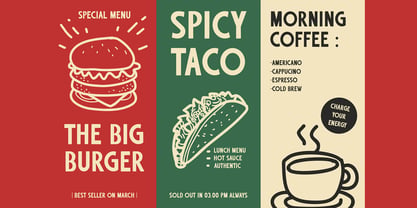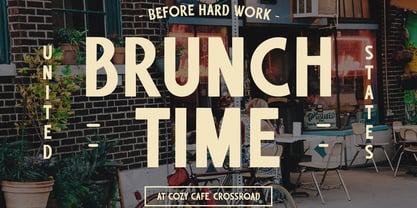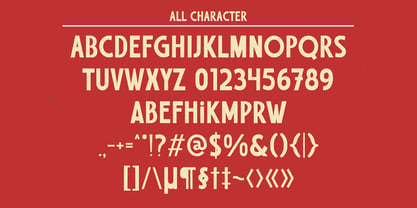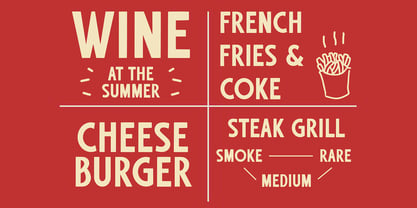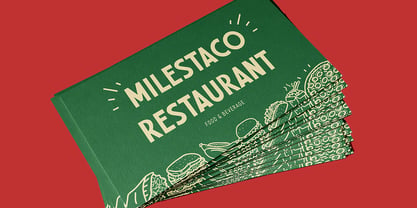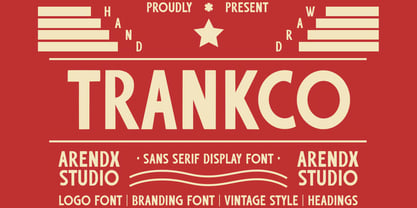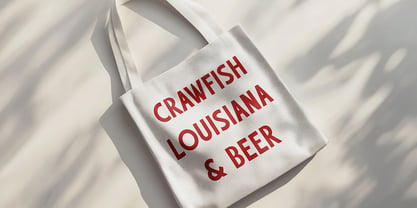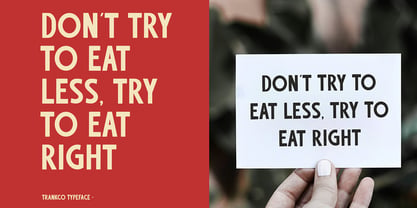
Trankco
Trankco is a retro sans-serif hand-drawn font that channels the bold, no-nonsense typography of 1960s advertising and industrial signage, but with the gritty charm of a brush or marker. Imagine the raw energy of a mechanic’s hastily scrawled garage sign or a vintage diner’s hand-painted menu—Trankco captures that imperfect, utilitarian vibe with uneven strokes, subtle ink bleeds, and a touch of rebellious flair.
With its chunky, geometric letterforms and deliberate wobbles, Trankco feels like it was dashed off in a hurry but designed to last. The font’s slightly skewed angles and rough edges give it an "I’ve been around the block" attitude, perfect for projects that need a punch of nostalgia with a DIY edge.
### Key Features:
- Hand-drawn sans-serif with uneven weight distribution (think: marker or brush).
- Retro textures (subtle ink splatters, rough corners).
- Uppercase-focused with gritty numerals and punctuation.
- Multilingual support for broad use.
### Perfect For:
- Vintage auto repair logos (*"Joe’s Garage"* vibes).
- Retro packaging (motor oil, hot sauce, beer labels).
- Industrial branding (breweries, barbershops, diners).
- Pair it with: A sleek modern sans (for contrast) or a script font (for storytelling).